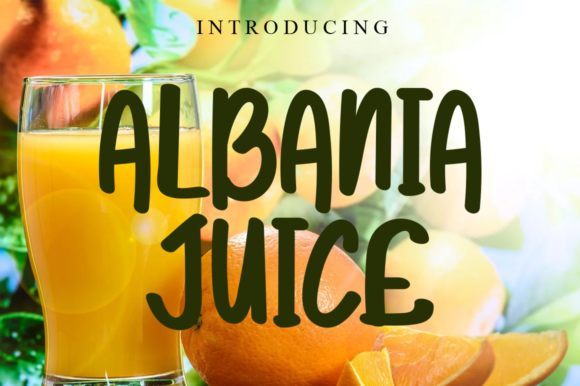
In a world saturated with digital monotony, Albania Juice Font emerges as a breath of fresh air, a symphony of strokes that dances across your screen like a ballerina on a moonlit stage. Crafted by the visionary hands of A2-lucky, this script font is more than just a collection of characters; it's an experience, an invitation to let your imagination run wild.
Albania Juice Font isn't just another font; it's a gateway to a world of boundless creativity. With its relaxed and natural handwritten style, this font possesses an inherent charm that effortlessly captivates the hearts of designers and typography enthusiasts alike. Its simple yet visually striking presence ensures that your creations will stand out from the crowd, leaving an indelible mark on the minds of your audience.
Imagine your words taking on a life of their own, flowing across the page like a gentle stream, each letter a unique brushstroke that tells a story. Albania Juice Font breathes life into your designs, transforming them from mere words on a screen into captivating works of art. Its versatility knows no bounds, lending itself seamlessly to a myriad of projects, from heartfelt Christmas cards to enchanting invitations, from whimsical social media posts to eye-catching logos.
With Albania Juice Font, you'll discover a font that's not just a tool, but a muse, a companion on your creative journey. Its ability to evoke emotions and create a lasting impression is unparalleled, making it the perfect choice for designers who seek to make a statement, to leave a legacy that resonates with their audience.
So why settle for ordinary when you can embrace the extraordinary? Embrace Albania Juice Font, and let your creativity soar to new heights. Experience the joy of crafting designs that captivate, designs that tell stories, designs that make a difference. Embrace the power of beautiful typography, and let Albania Juice Font guide you on your journey to greatness.